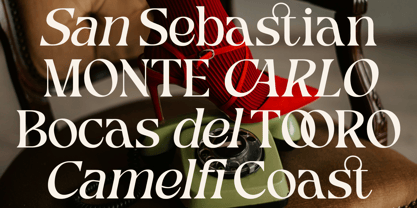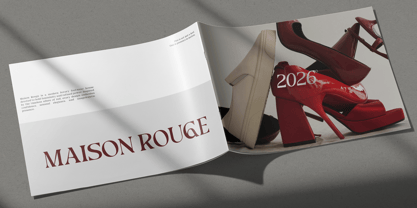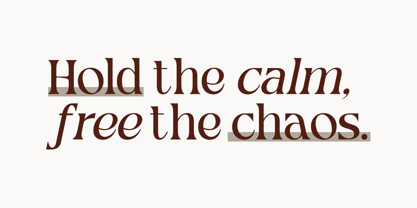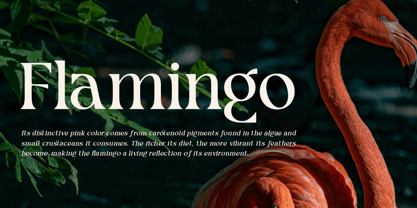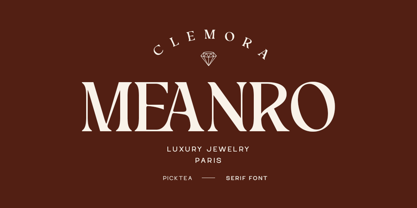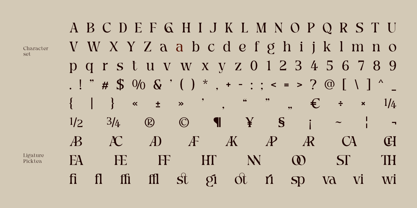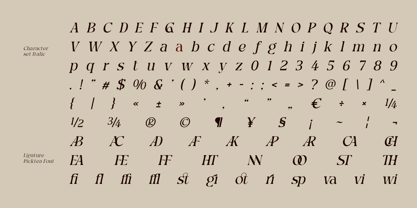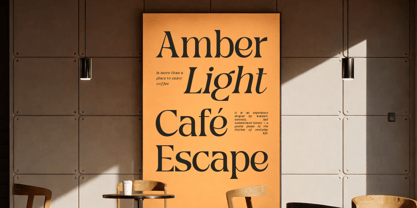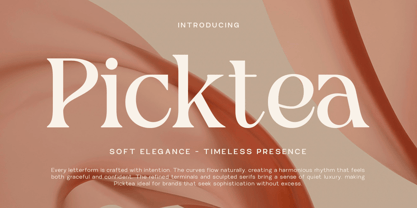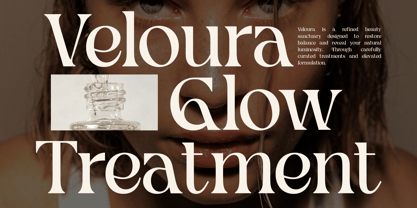
Picktea
The Picktea Font Family was designed by Bakhrudin Ja'far and published by Jafar07. Picktea contains 2 styles and family package options. More about this family
Picktea is a modern serif display typeface designed to deliver elegance, softness, and refined typographic presence. Featuring sculpted serifs, smooth curves, and balanced contrast, Picktea performs beautifully in headline settings, luxury branding systems, and editorial layouts. Its typographic character makes it particularly suitable for fashion publishing, beauty brands, premium packaging, and sophisticated visual identities. Style: Display Serif Contrast: Medium to High Language Support: Western & Central Europe Features: Professional kerning, refined curves, headline optimization